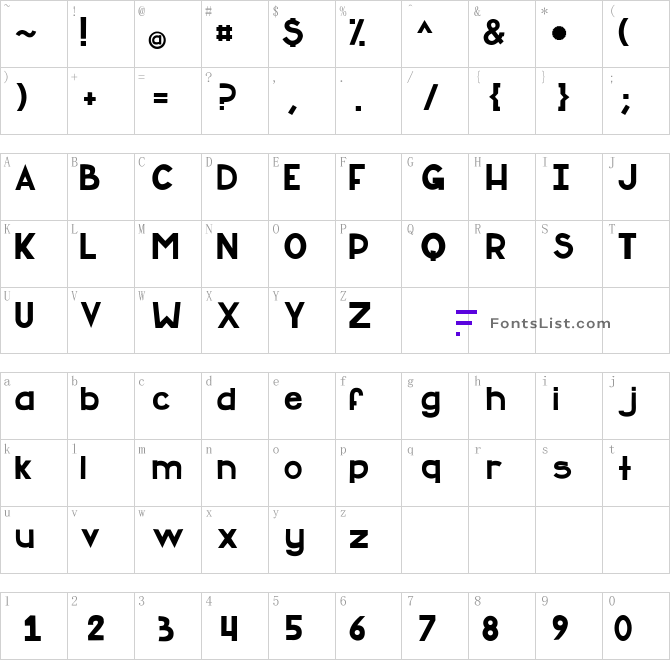
- Font Name:Ask My Flashlight
Ask-My-Flashlight.ttf is a very beautiful artistic font, Ask-My-Flashlight.ttf is widely used in the design and printing of various books and pictures,Ask-My-Flashlight.ttf has a strong visual impact,Ask-My-Flashlight.ttf is a commonly used font in newspapers, magazines and books, and is used in posters, e-commerce Poster design, store design, logo design, font design and other fields.Ask-My-Flashlight.